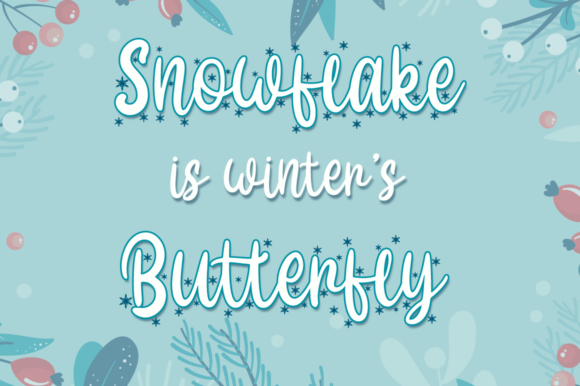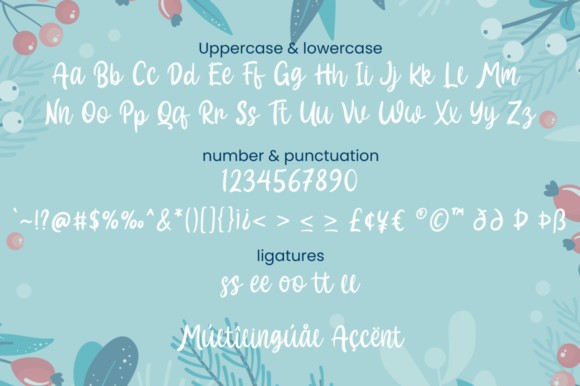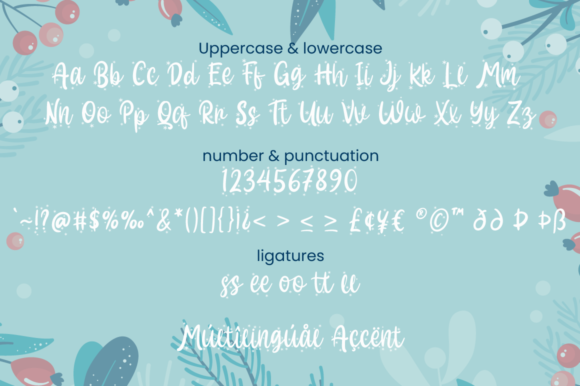
Introduction to Hallo White Font
As you sit down at your desk, surrounded by scraps of paper and half-empty cups of coffee, the creative spark strikes – you’re planning a holiday design project. The snowflakes are falling outside, and you want your project to capture that magical feeling. That’s where the Hallo White Font comes in – a festive and romantic handwritten font featuring little snowflakes that will make your design shine.
With its incredibly versatile style, the Hallo White Font is a valuable resource for designers looking to add a touch of whimsy and romance to their projects. Whether you’re creating a card, invitation, or social media graphic, this font is sure to make your design stand out. And the best part? It’s a free download, making it an accessible design resource for creatives of all levels.
One of the standout features of the Hallo White Font is its transparent background, allowing you to easily layer it over other design elements. And with its high-quality design, you can trust that your final product will look polished and professional. So why not give the Hallo White Font a try and see how it can elevate your next creative project?
Key Features of Hallo White Font
- High-quality design for various creative projects, including digital art, graphics, and logos.
- Features a transparent background, allowing for seamless integration with any design.
- Unique characteristics include a clean, modern aesthetic and a wide range of font styles and weights.
- Perfect for use in digital design, print materials, and web development projects, thanks to its versatility and high quality.
Honest Review: Hallo White Font
I recently stumbled upon the Hallo White Font and was excited to give it a try. As a designer, I’m always on the lookout for high-quality fonts to add some creativity to my projects. And let me tell you, this font does not disappoint!
Here are some things that I think work well with the Hallo White Font:
- ✨ Clean and modern design aesthetic
- ✨ High quality and crisp typography
- ✨ Transparent background, making it easy to customize
- ⚠️ Limited font styles and variations
- ⚠️ May not be suitable for all creative projects, especially those requiring bold or dramatic typography
Overall, I’m impressed with the Hallo White Font. It’s a great addition to any designer’s toolkit, especially for those looking for a clean and modern look. While it may have some limitations, I think it’s a solid choice for any creative project that requires a high-quality, transparent background font.
Tips for Getting the Most Out of Hallo White Font
For a high-quality design, pair the Hallo White Font with a transparent background.
Use the font in a creative project to add a touch of elegance and sophistication.
Common Use Cases for Hallo White Font
The Hallo White Font is a versatile design resource that can be used in a variety of applications, including:
Branding and marketing materials
Editorial and publishing projects
Alternatives to Hallo White Font